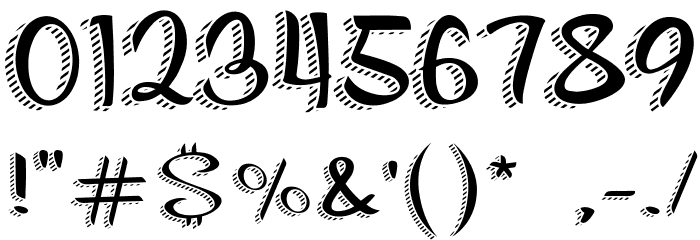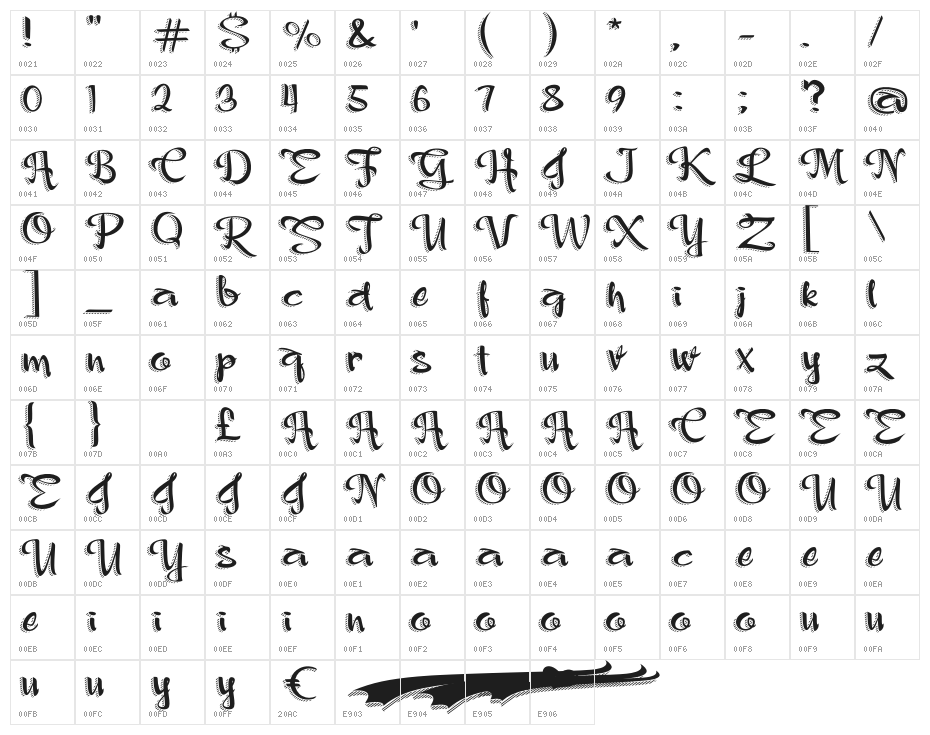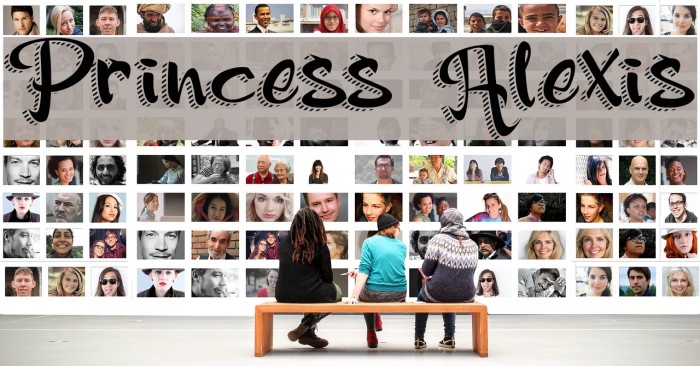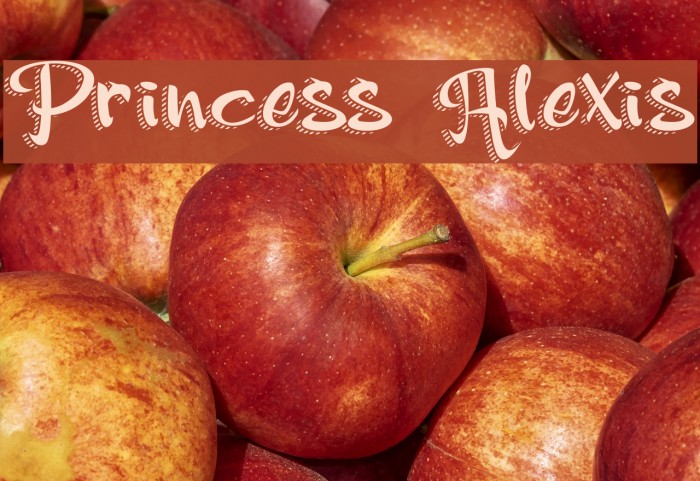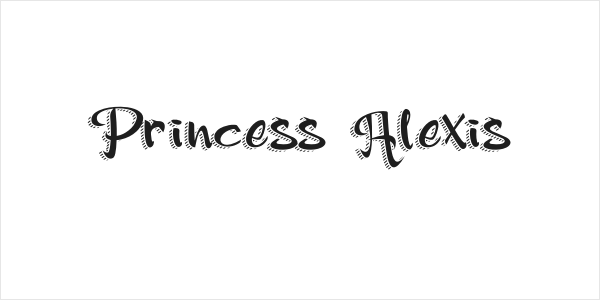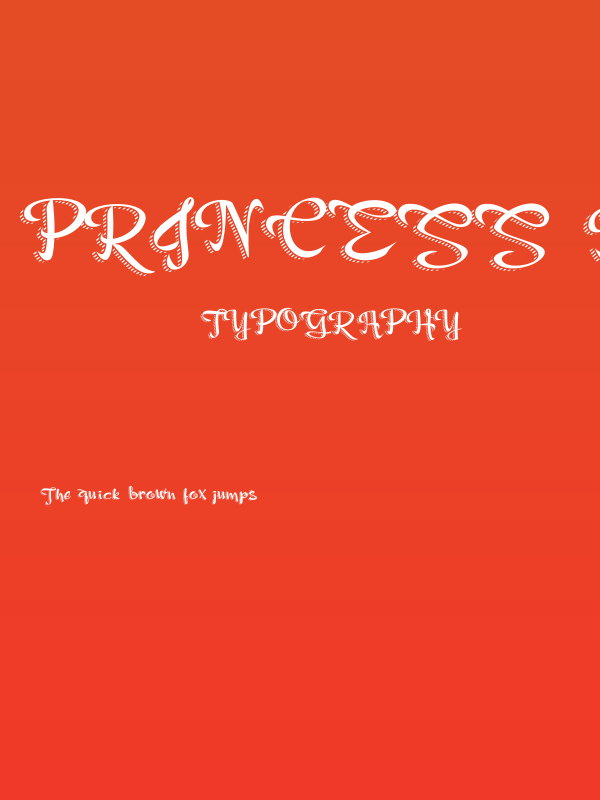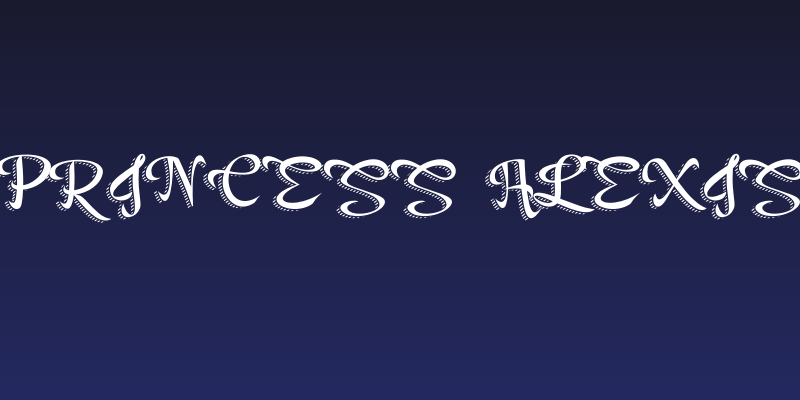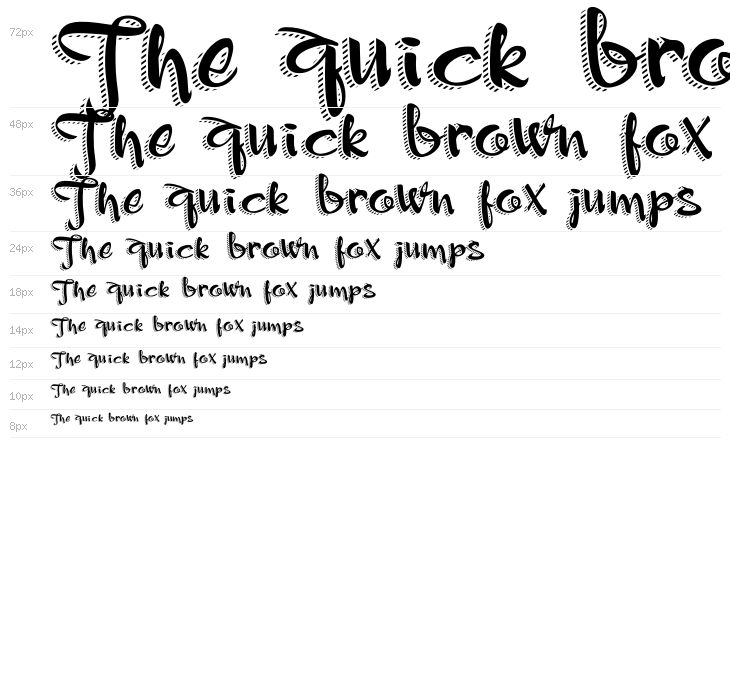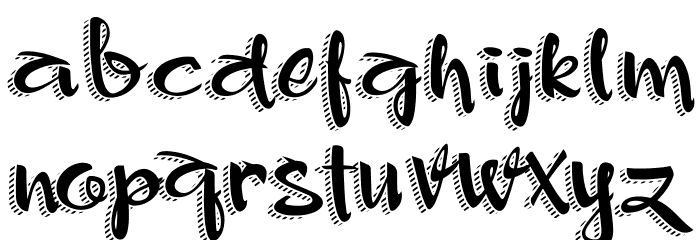
Princess Alexis Font
Princess Alexis Description
This font features a playful and decorative style, characterized by bold, curvy strokes with a unique striped shadow effect. The uppercase letters are ornate and slightly whimsical, while the lowercase letters maintain a consistent, flowing script-like appearance. Numbers and special characters are designed to match the overall aesthetic, adding a cohesive look to any text. The font's distinctive shadowing adds depth and a sense of movement, making it stand out in various design contexts.
| Overall Style | Playful, Decorative |
| Proposed Projects | Ideal for children's book covers, playful branding, event invitations, and eye-catching posters. |